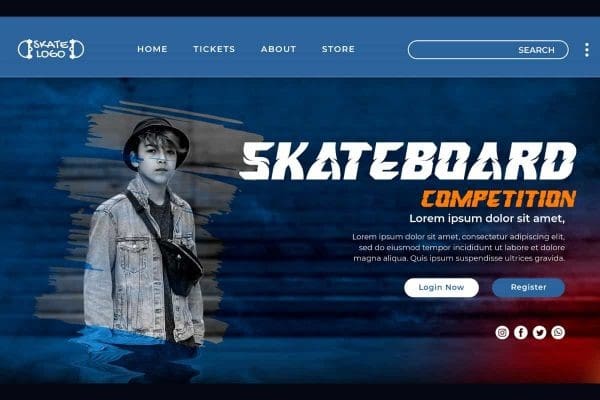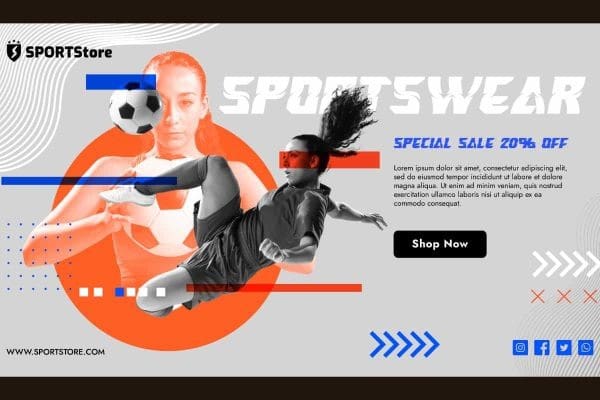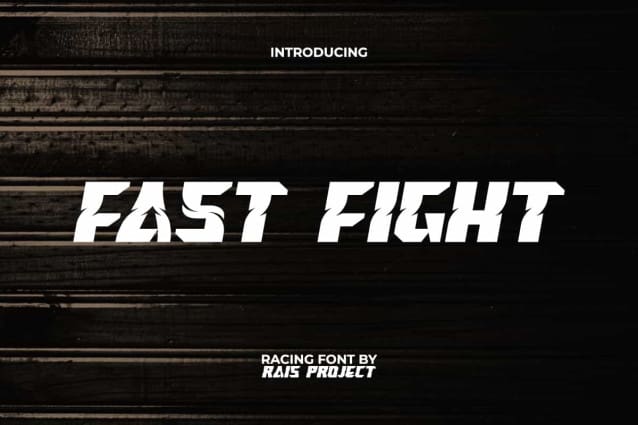
Fast Fight Font
Fast Fight Font is an impressive decorative strong sporty racing display font by RaisProject Studio. This font has a bold appearance with thin lines inside the letters which makes it look more unique. It will be good for any designs, such as advertisement, brand image, cover, custom design, invitation, label, marketing material, poster, product packaging, quotes, signage, stationery, website page, and more!
Fast Fight Font includes a full set of ALL CAPS for Uppercase and Lowercase Letters, Numerals, and large range of Punctuation. This modern font with a racing vibe will be suitable for various industries, such as automotive, coffee shop, event or festival, fashion, game, printing, publishing, sports, etc.